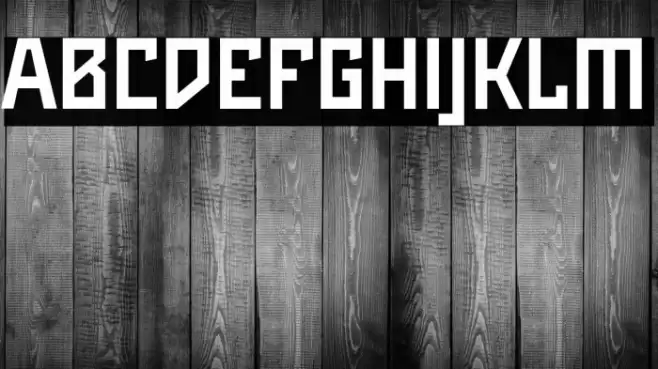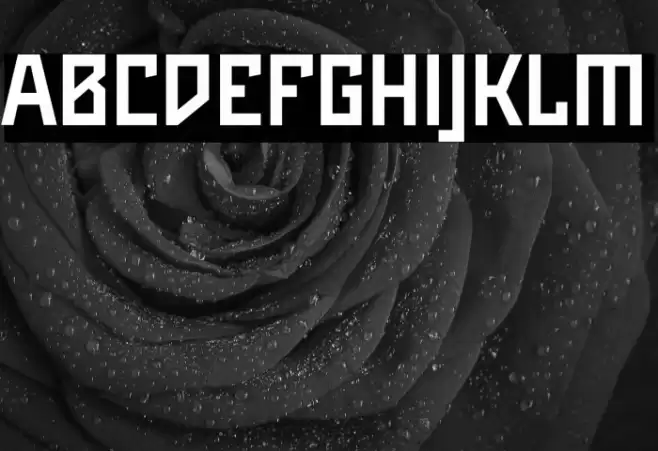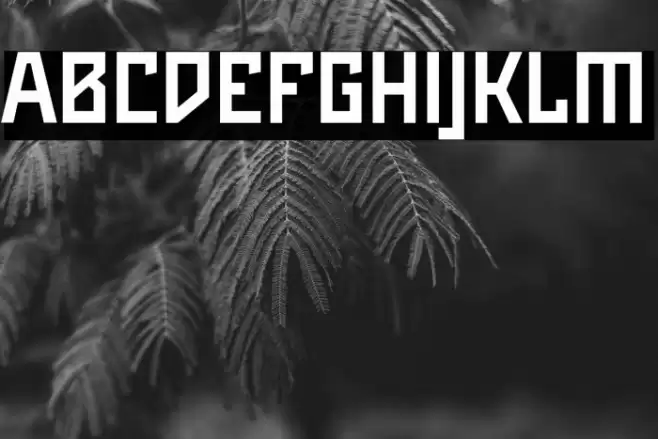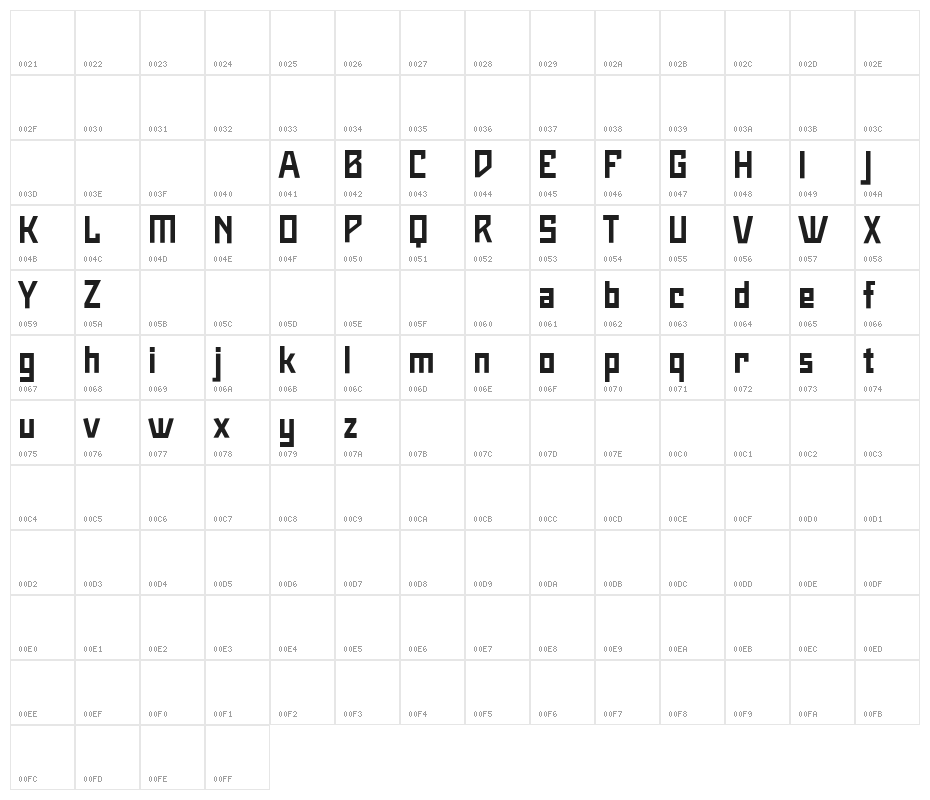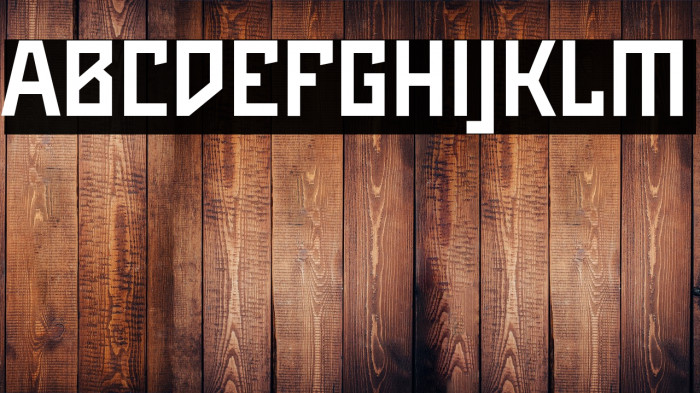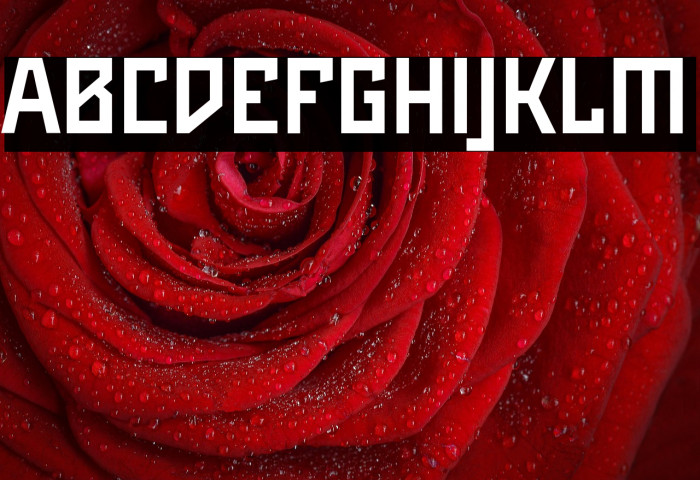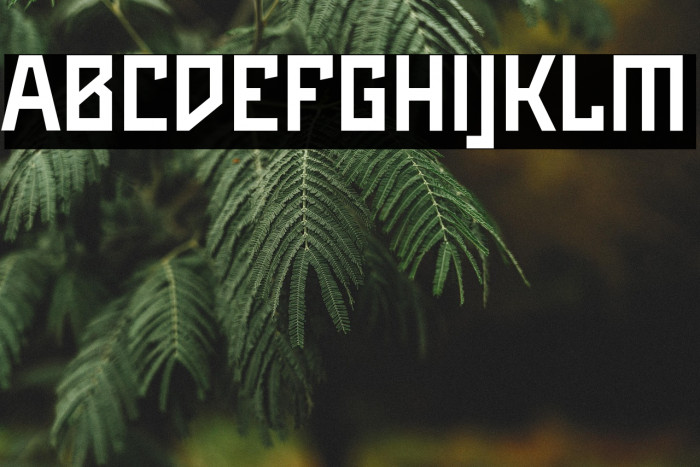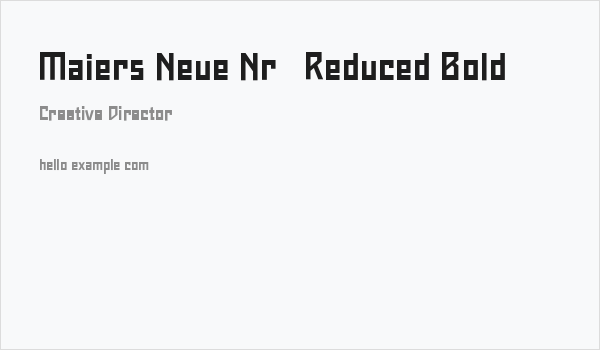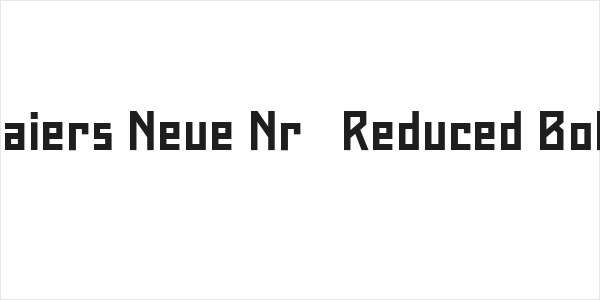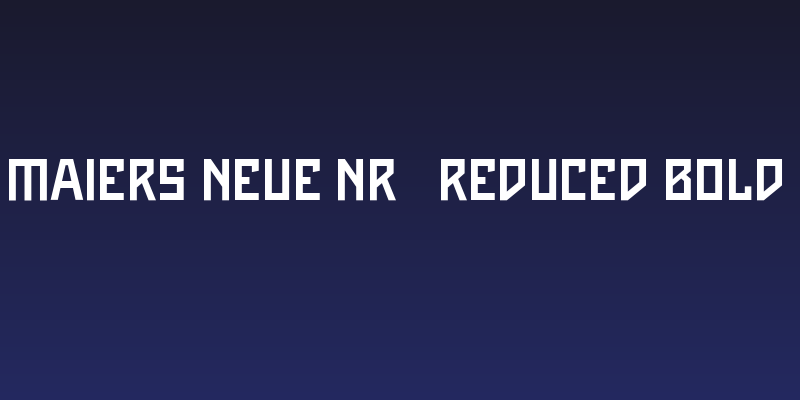
Maiers Neue Nr.8 Reduced Bold Font
Maiers Neue Nr.8 Reduced Bold Description
This font features a bold and geometric design with a strong presence. The characters are constructed with straight lines and sharp angles, giving it a modern and industrial feel. The uppercase letters are uniform in height, while the lowercase letters maintain a consistent style with slightly reduced height. The numbers and special characters follow the same geometric pattern, ensuring a cohesive look across all glyphs. The overall appearance is clean and structured, making it suitable for projects that require a bold and assertive typeface.
A bold, geometric font with a modern and industrial style from Uncategorized fonts.